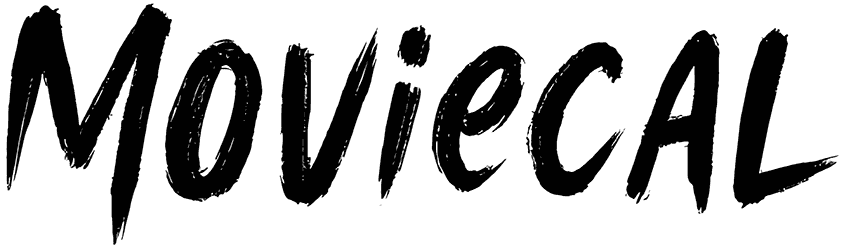
Moviecal Font
With a modern and cool letterform like this brush font, you can create a unique style for your project. The Moviecal font has an urban and energetic vibe but it doesn’t offer lowercase letters. Use this poster font for your new layouts such as an action movie poster and show off your special taste.